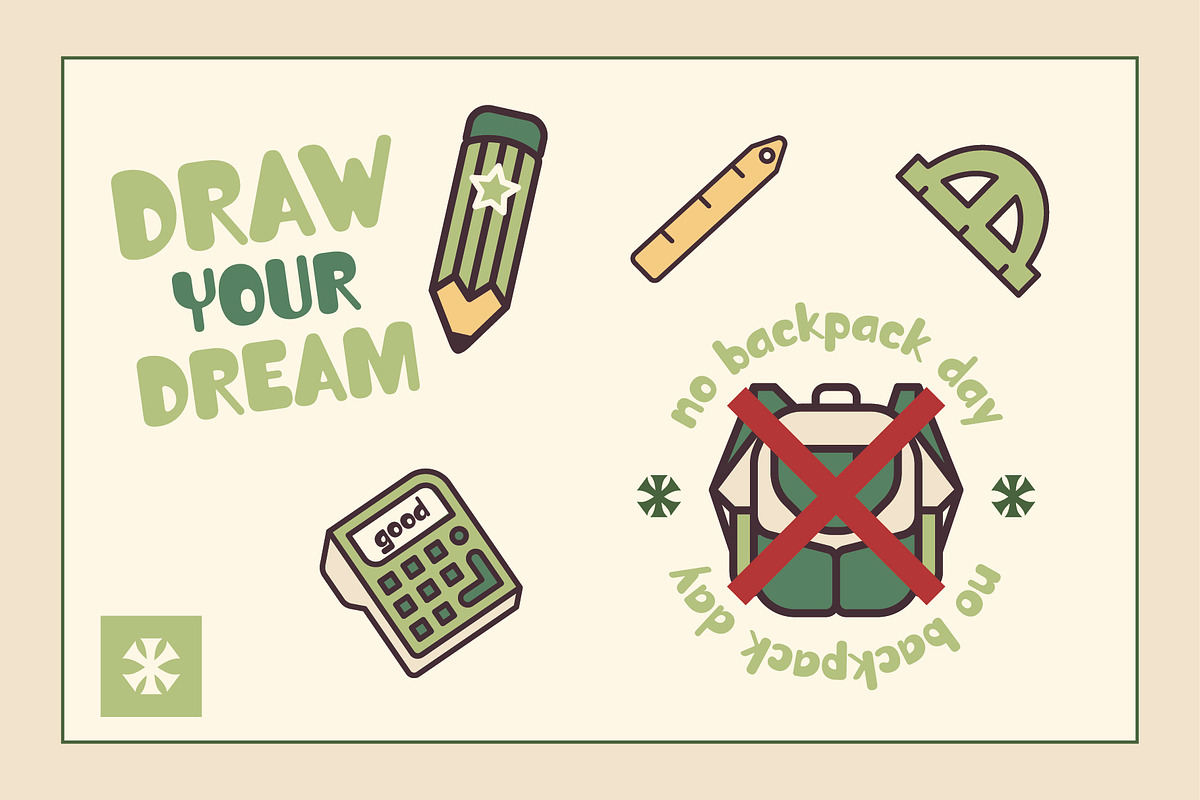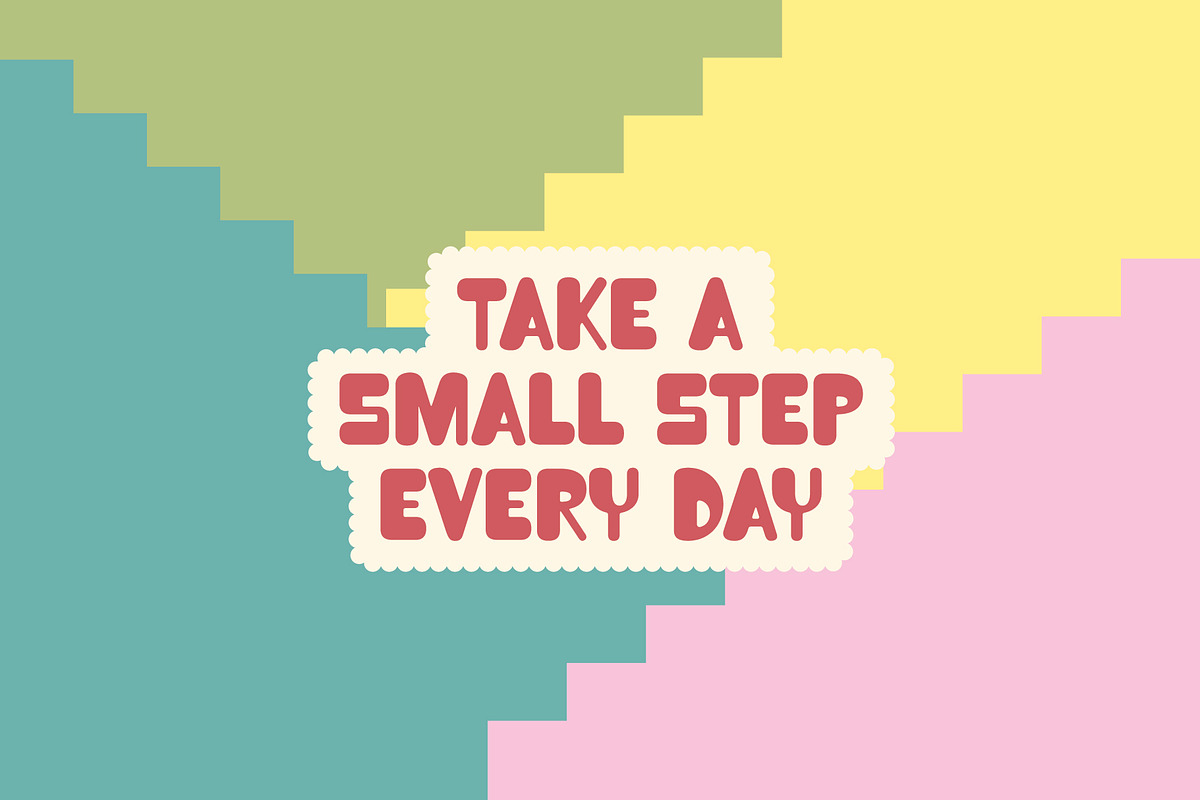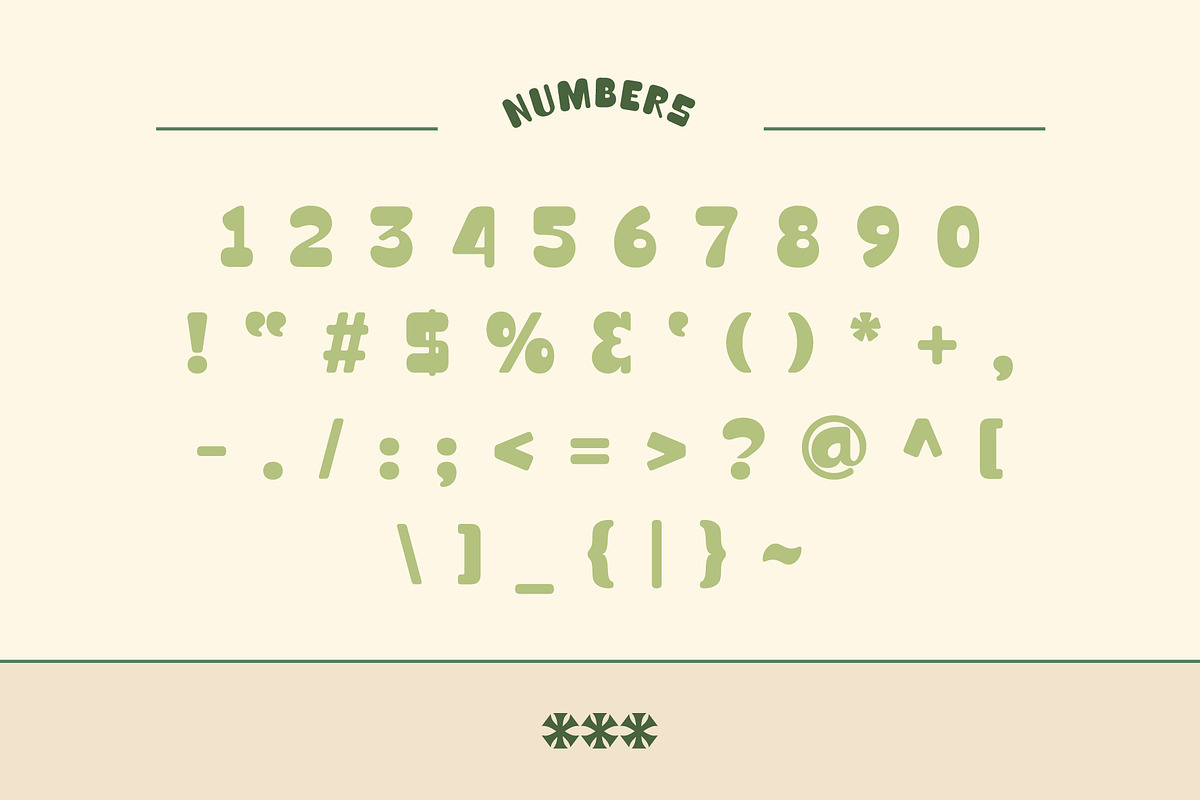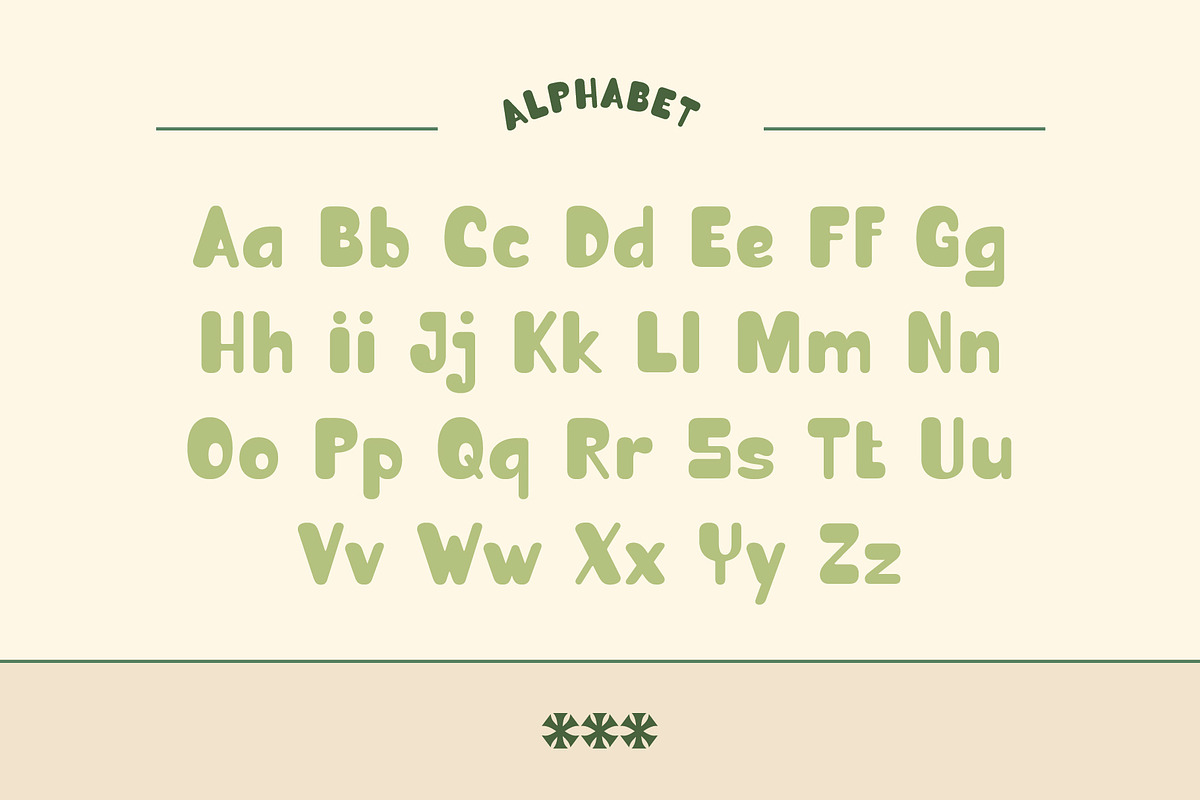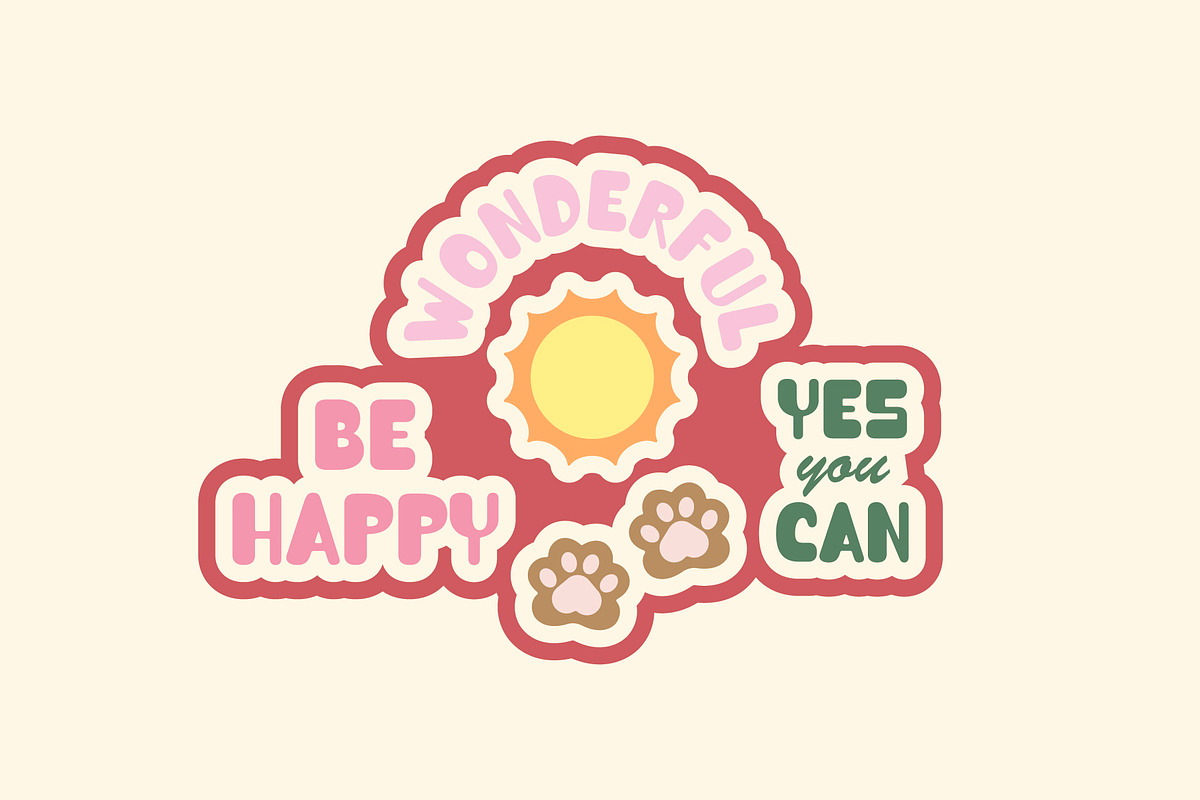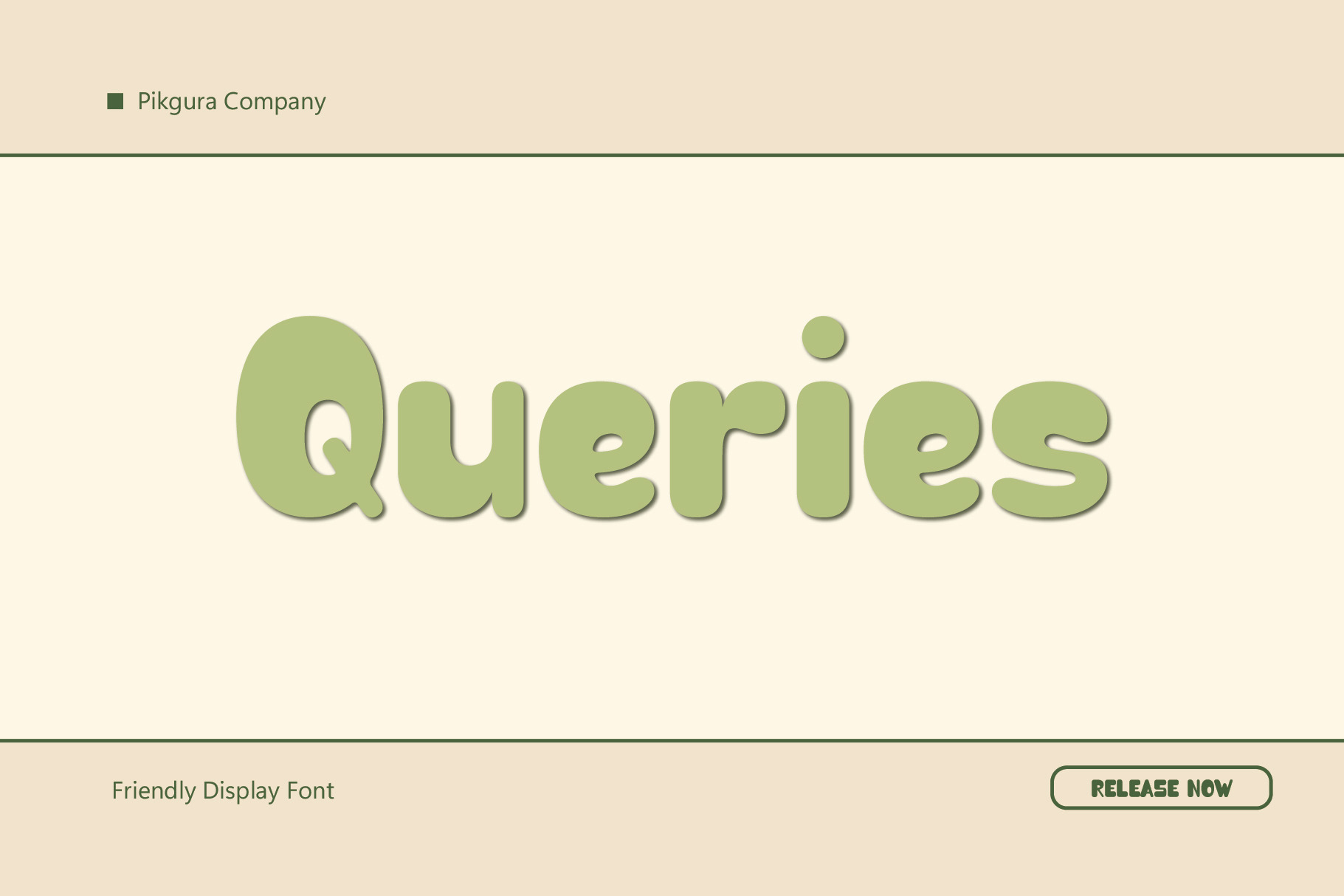
Queries - Bubble Handwritten Font
Take your designs to the next level with Queries, the ultimate playful bubble sans serif font! This retro-inspired font is packed with personality and style, making it perfect for logos, magazines, children’s books, quotes, and more.
Queries is a font that’s great for creating eye-catching headlines that grab attention! Its bold and playful design makes it ideal for creating titles and headings that stand out from the crowd.